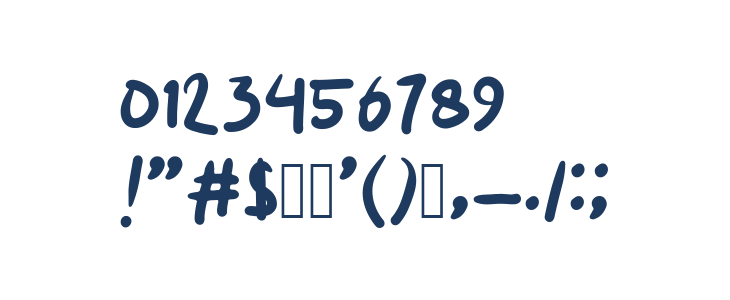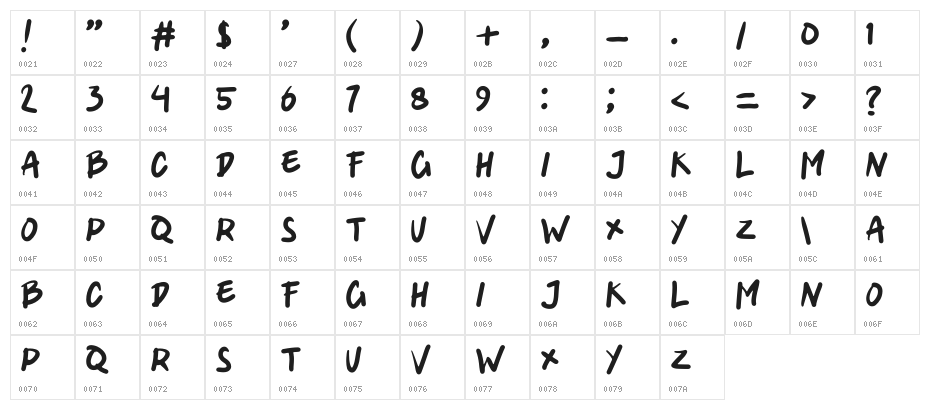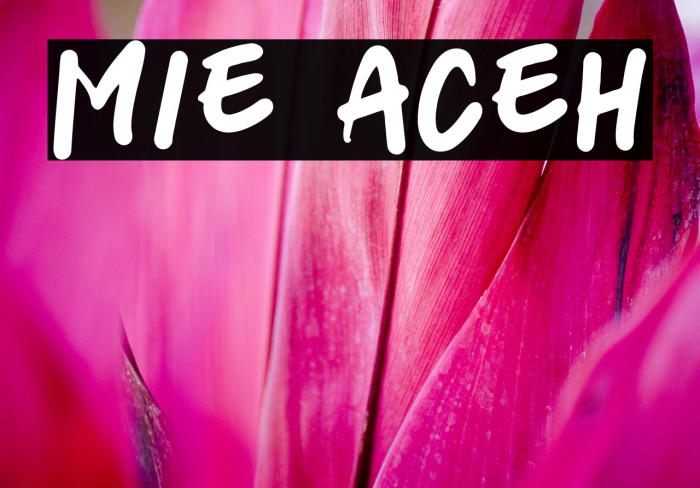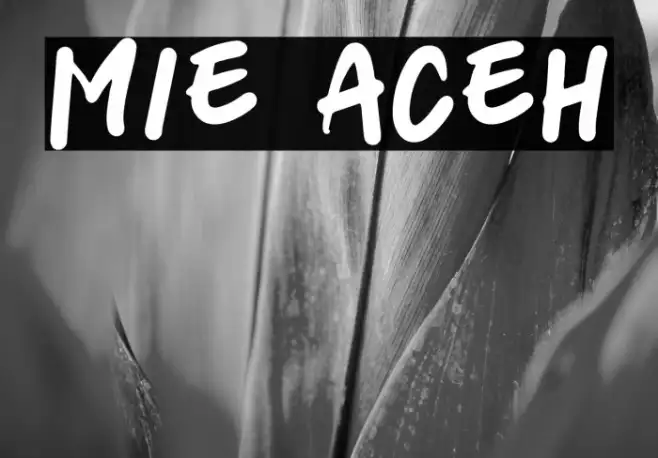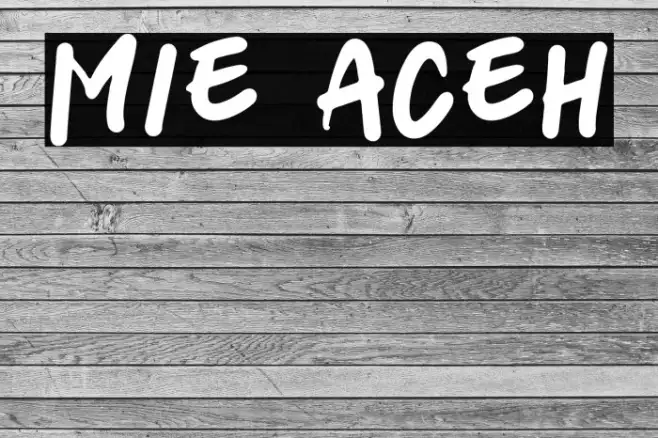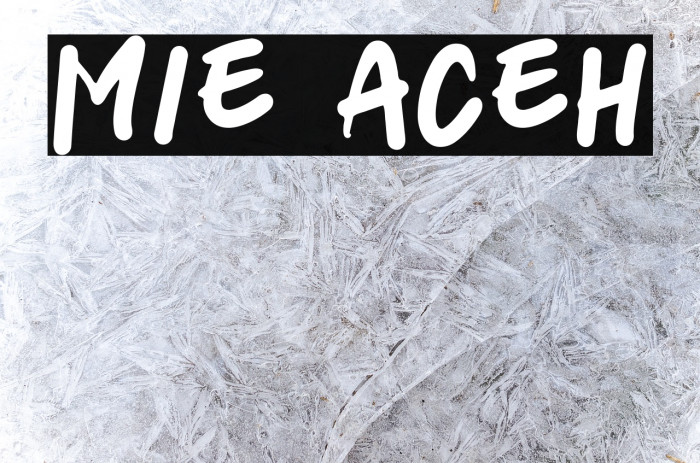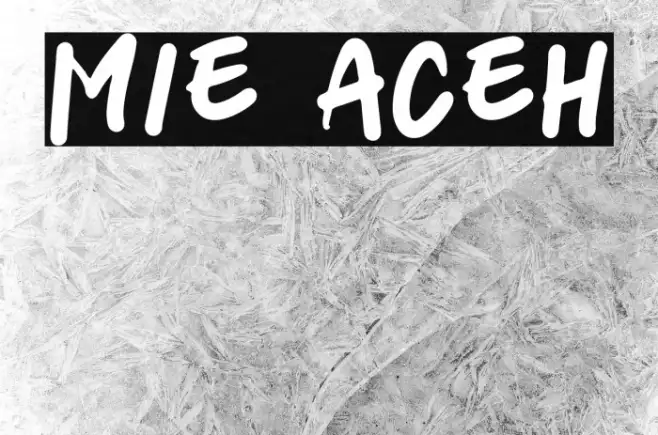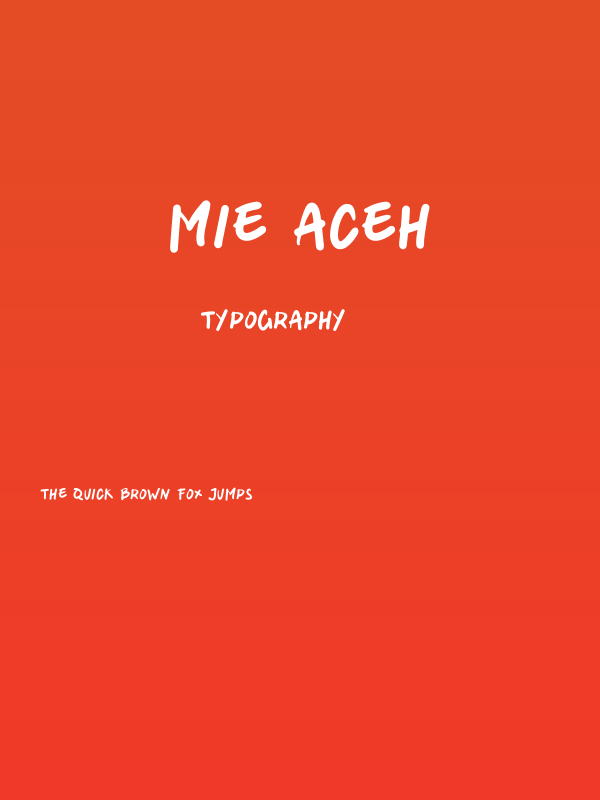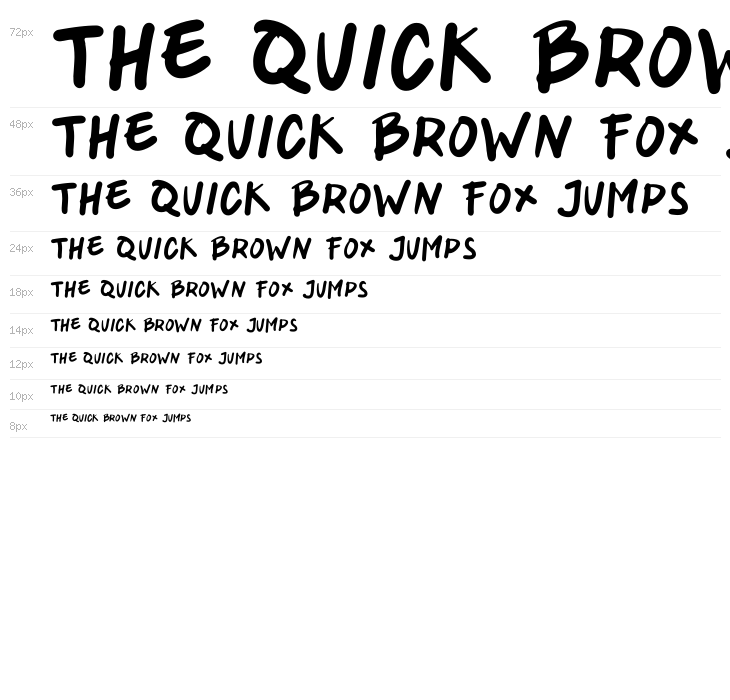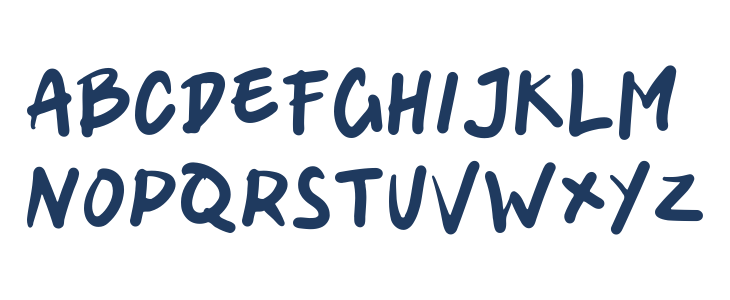
mie aceh Font
This font features a bold and expressive handwritten style, characterized by its thick strokes and playful curves. The letters are slightly slanted, giving it a dynamic and energetic appearance. The uppercase and lowercase letters maintain a consistent flow, while the numerals and special characters complement the overall aesthetic with their rounded and approachable forms. The font exudes a casual and friendly vibe, making it suitable for projects that aim to convey warmth and approachability. Its distinct personality is evident in the unique shapes of certain letters, such as the 'G' and 'Q', which add a touch of individuality. The font's boldness ensures readability, even at smaller sizes, while its informal style makes it ideal for creative and informal applications.